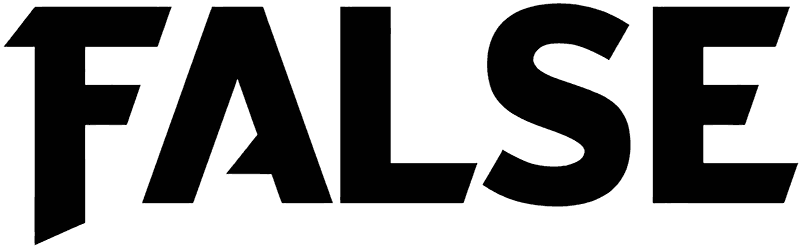
False Font
Using modern and unique lettering is all about giving a striking and contemporary visual to a layout, and this poster font is one of your choices that can make it happen. This Esports font doesn’t support lowercase letters, but its unique characters can make your project level up. Test the False font for your advertisement city light design and capture a lot of observers.